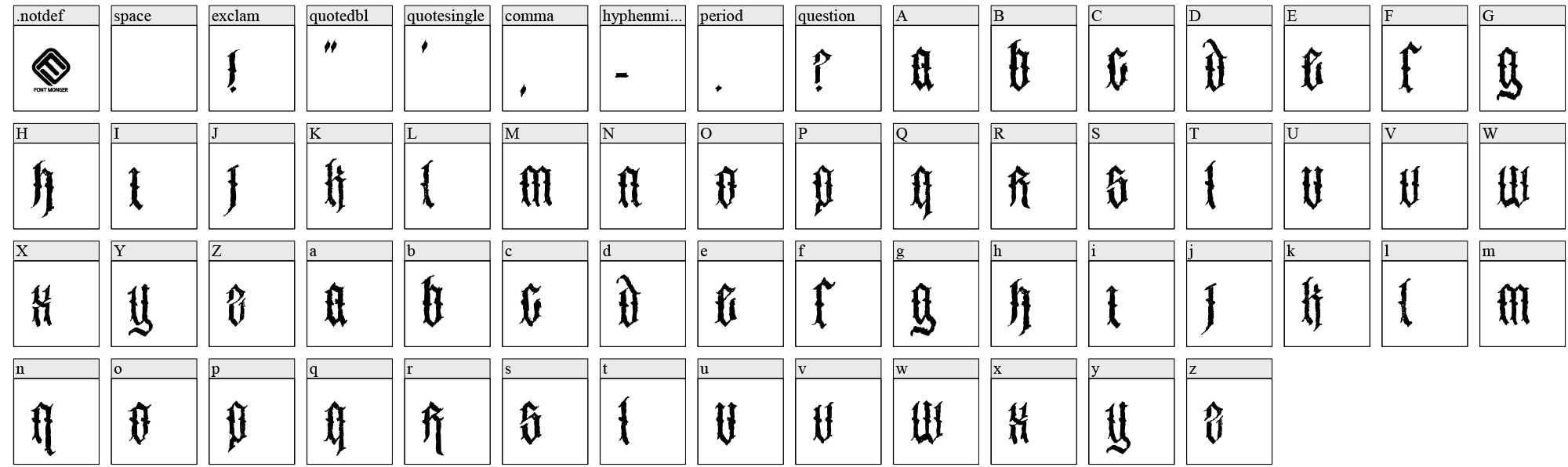
Brodequin is a font that captures the essence of old English elegance with a touch of erosion and wear. Its letters are designed to look as though they have been worn and weathered over time, giving them a vintage, timeless feel. The font's eroded edges and curved serifs add to its overall look, creating a font that is both sophisticated and rugged. Brodequin is the perfect font for designs that need to convey a sense of history and tradition, such as book covers, wine labels, or historical events. With its elegant yet eroded appearance, Brodequin is a font that is sure to make a lasting impression on any project it is used in. Whether you're creating a design for a historical novel or a heritage-themed event, Brodequin is the perfect font to bring a touch of old English charm to your designs.
Lowercase: Same as uppercase
Numbers: No
Symbols & Punctuation: Very limited, view image below to see available
Accents: No
Theme: Death metal, horror, eroded, blackletter